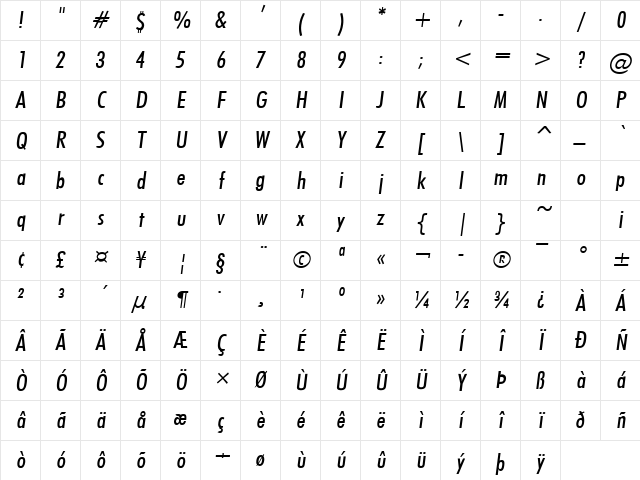
Futuri Condensed Italic
Futuri Condensed Family
Complete Futuri Condensed Italic glyph index. Displaying only characters natively supported by Futuri Condensed Italic font.
Design Context for Futuri Condensed
Futuri Condensed has a distinctly futuristic character, with geometric precision and clean angles that feel at home in technology, gaming, and sci-fi contexts. The slanted form adds forward momentum and visual energy. Its narrow stance lets it pack a punch even in space-constrained designs.